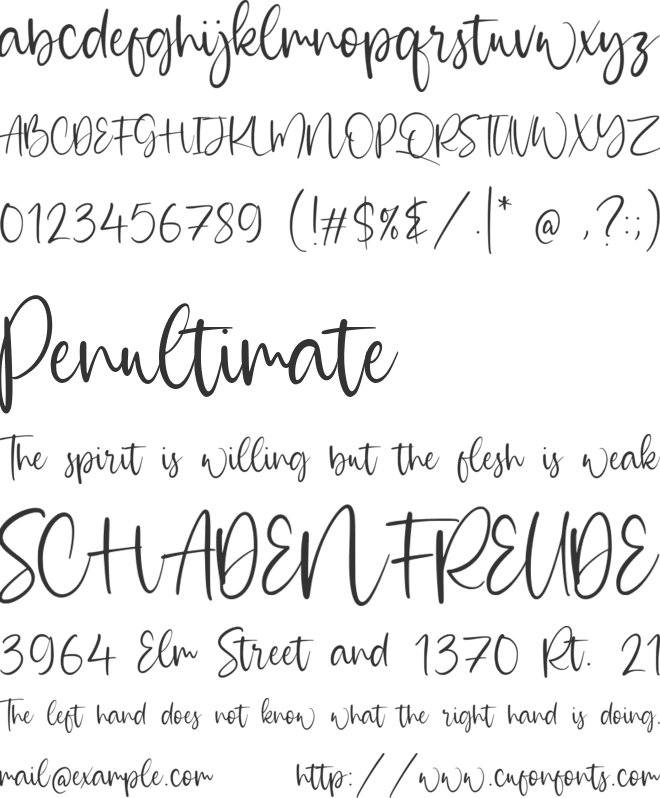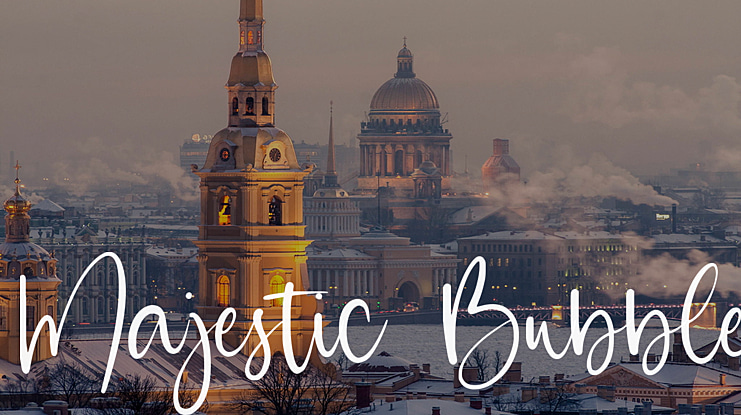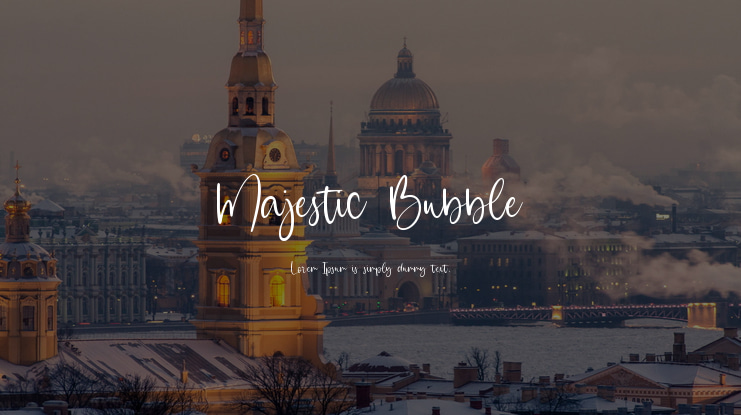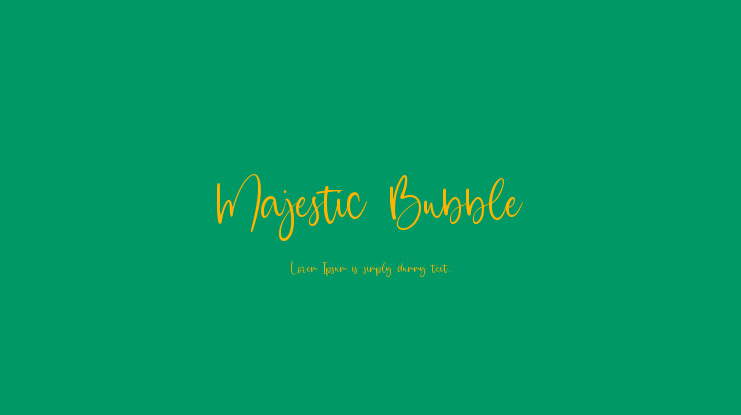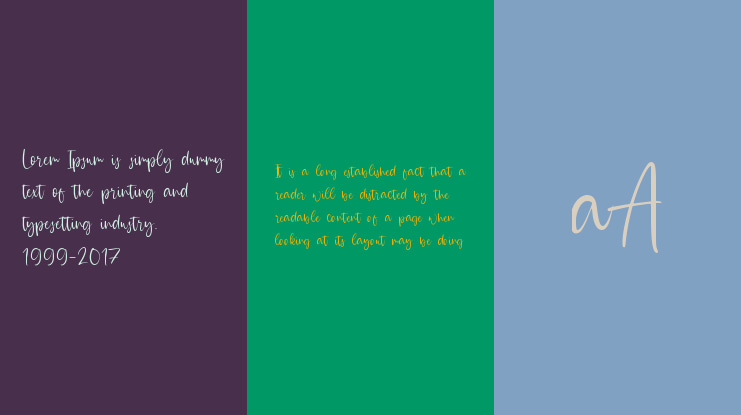
Majestic Bubble Font
Proudly Present, Majestic Bubble Font.
Majestic Bubble is a Modern Handwritten Font.
Majestic Bubble is perfect for product packaging, branding project, megazine, social media, wedding, or just used to express words above the background.